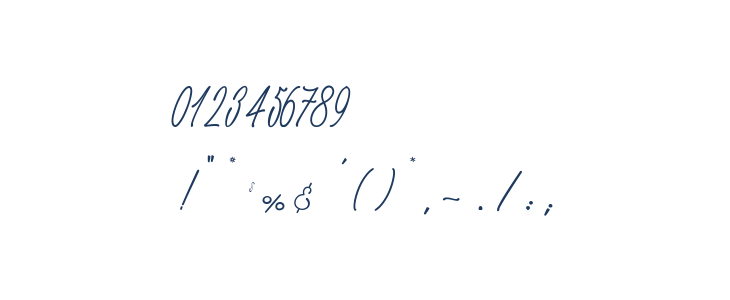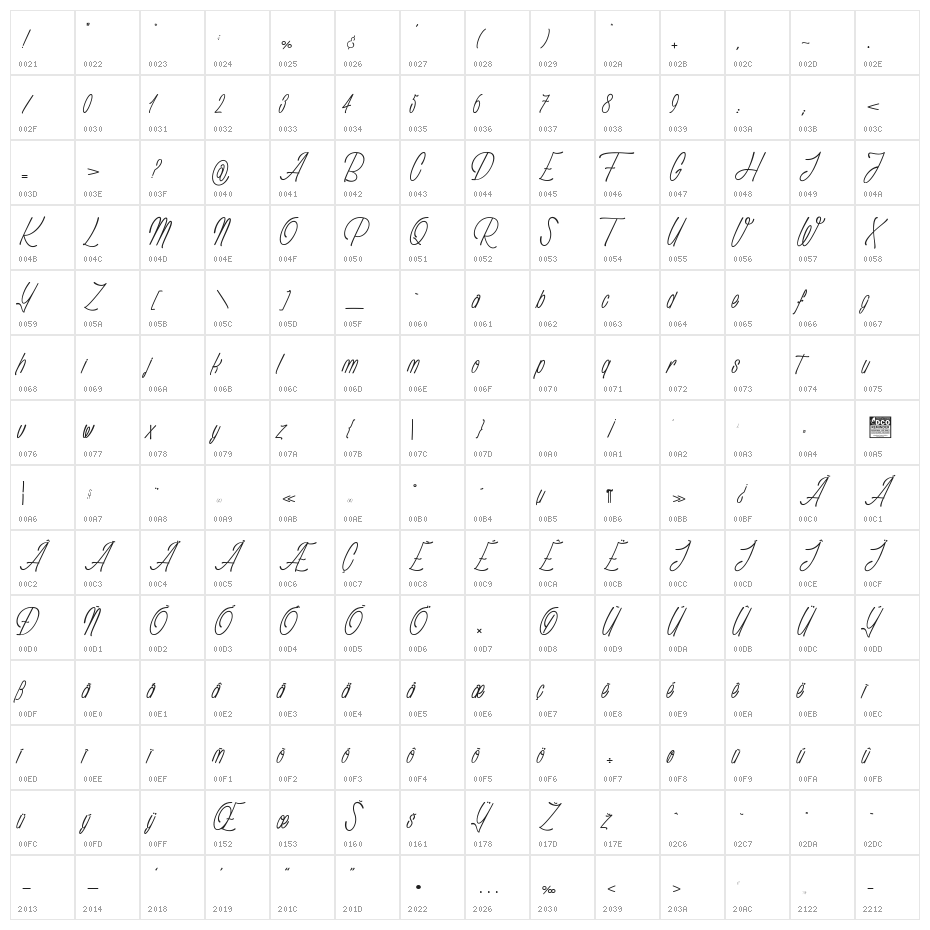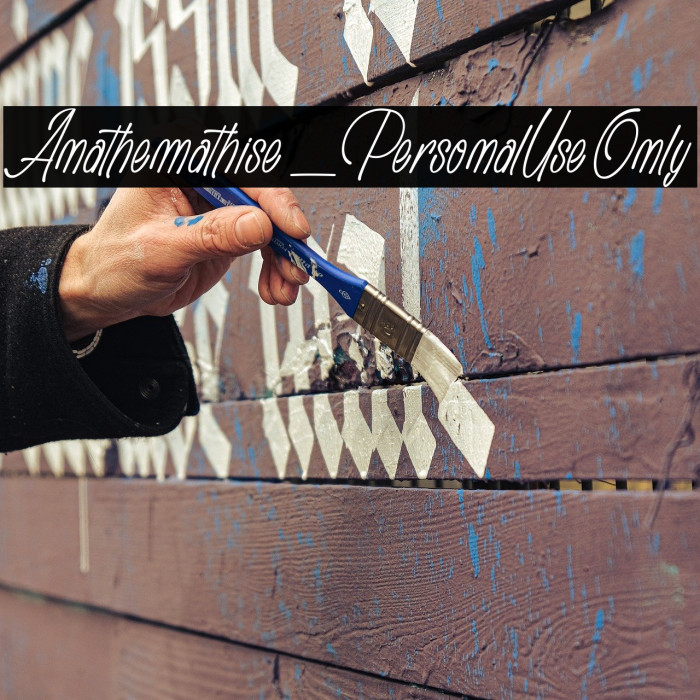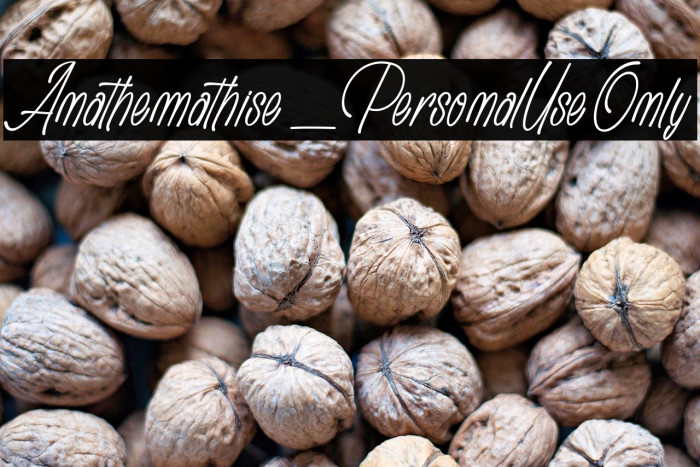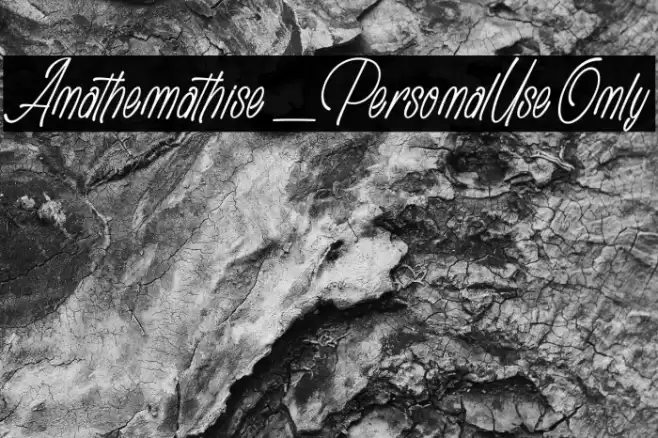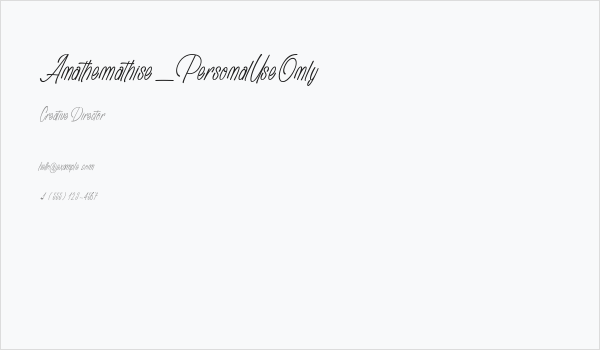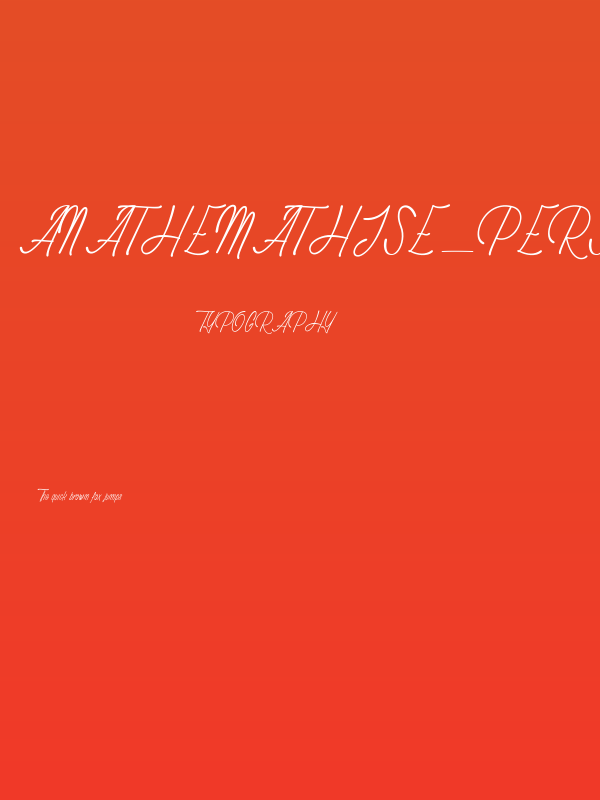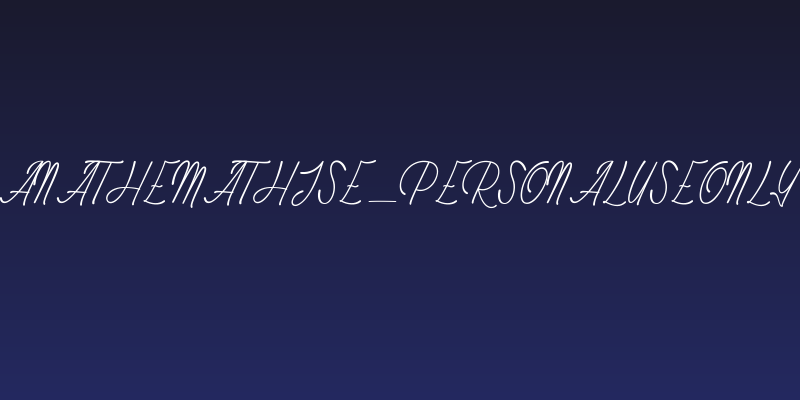
Anathemathise_PersonalUseOnly Font
Anathemathise_PersonalUseOnly Description
This font features a distinctive handwritten style with elegant, flowing lines that convey a sense of sophistication and creativity. The uppercase letters are tall and slender, with a slight slant that adds a dynamic feel. The lowercase letters maintain the same slant, with smooth curves and loops that enhance the font's fluidity. Numbers are consistent with the overall style, featuring the same graceful curves. Special characters are thoughtfully designed to match the font's aesthetic, making it versatile for various uses. The font's unique character spacing and stroke contrast contribute to its artistic appeal, making it suitable for projects that require a personal touch.
| Proposed Projects | Ideal for wedding invitations, personal branding, artistic projects, and greeting cards. |